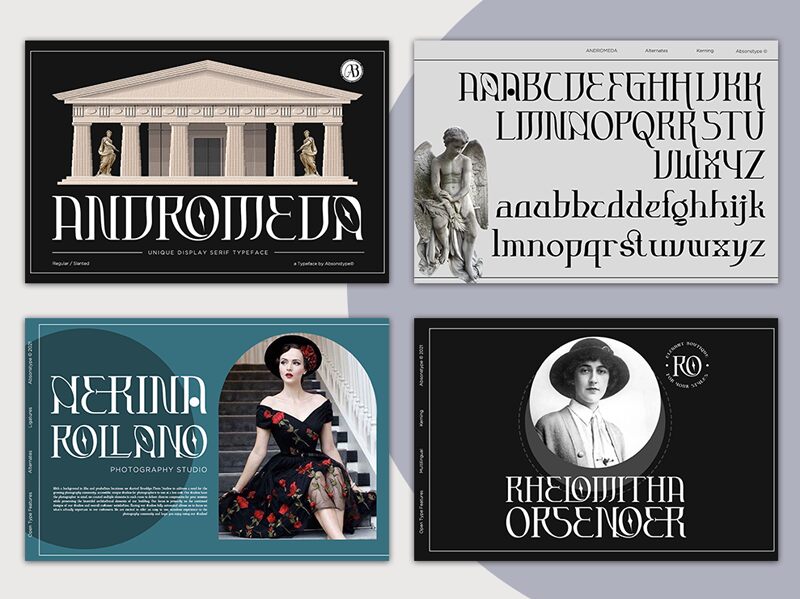
Andromeda, crafted by the visionary team at Absonstype Studio, is a captivating gothic font that commands attention. Its condensed width and striking letterforms exude a sense of power and elegance, evoking a timeless and sophisticated aesthetic. The font's distinctive features, such as the dramatic serifs and the harmonious balance between thick and thin strokes, create a visually compelling and memorable typographic experience.
Andromeda's versatility shines through its ability to adapt to a wide range of design contexts. Its strong presence and bold personality make it a compelling choice for branding, editorial design, and impactful headlines. The font's condensed nature also lends itself well to space-limited applications, allowing designers to create visually striking and cohesive compositions without sacrificing legibility.